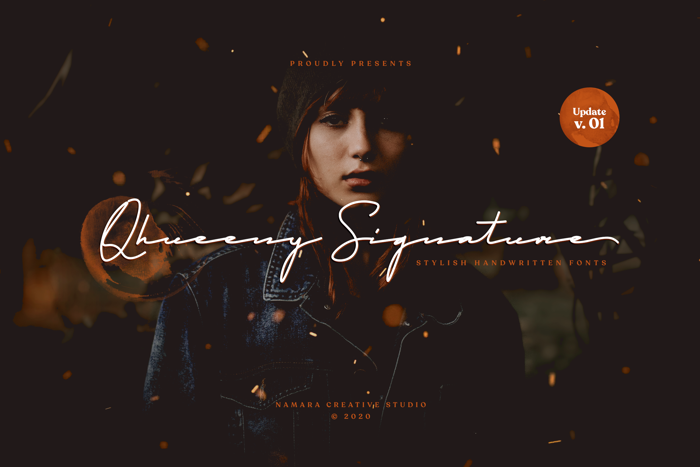
Qhueeny Signature Font
Qhueeny is a handwritten signature script with a natural & stylish flow.
Perfect for personal or business branding, wedding invitation, cosmetics,
fashion, signature logo, magazine cover, advertising and these typefaces
work well for many different aesthetics.